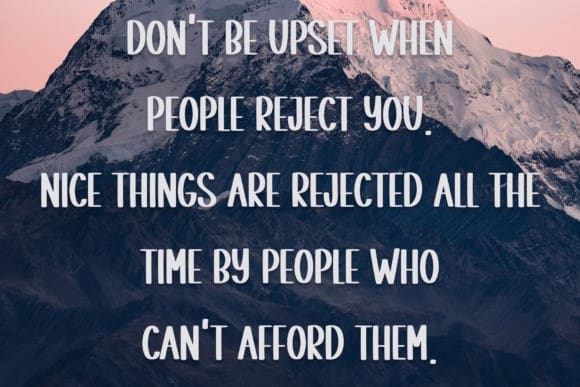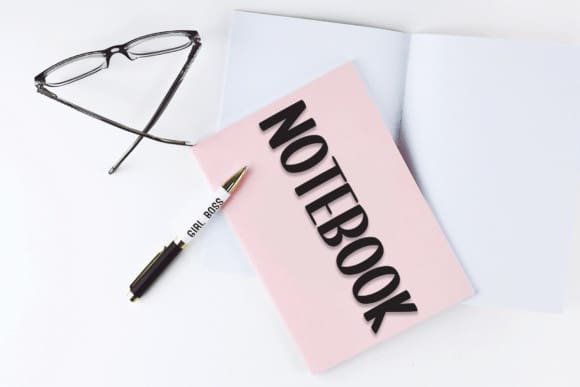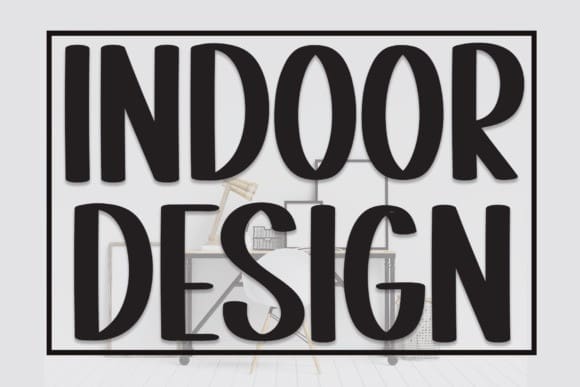
Indoor Design Font
Indoor Design Font is a neat and casual handwritten font. Its sleek look is perfect for all your designs that require a serious and professional touch.